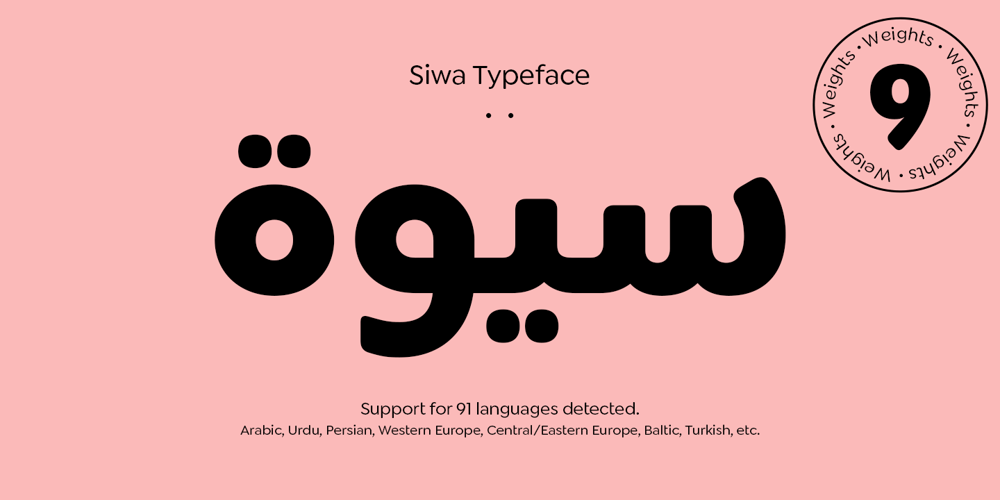
Siwa Arabic Font Family was designed by Abdo Mohamed, Ibrahim Hamdi and published by Protype. Siwa Arabic contains 9 styles and family package options. Siwa is a Multilingue typeface that created for the screens and the daily uses, with a simple timeless geometric design to merge the modern requirements with the traditional rules of calligraphy, comes with 9 weights, and support an OpenType feature for more than 90 languages, includes all the languages that based on Latin and Arabic letters, also support the Indian, Latin, Persian and Urdu numbers.